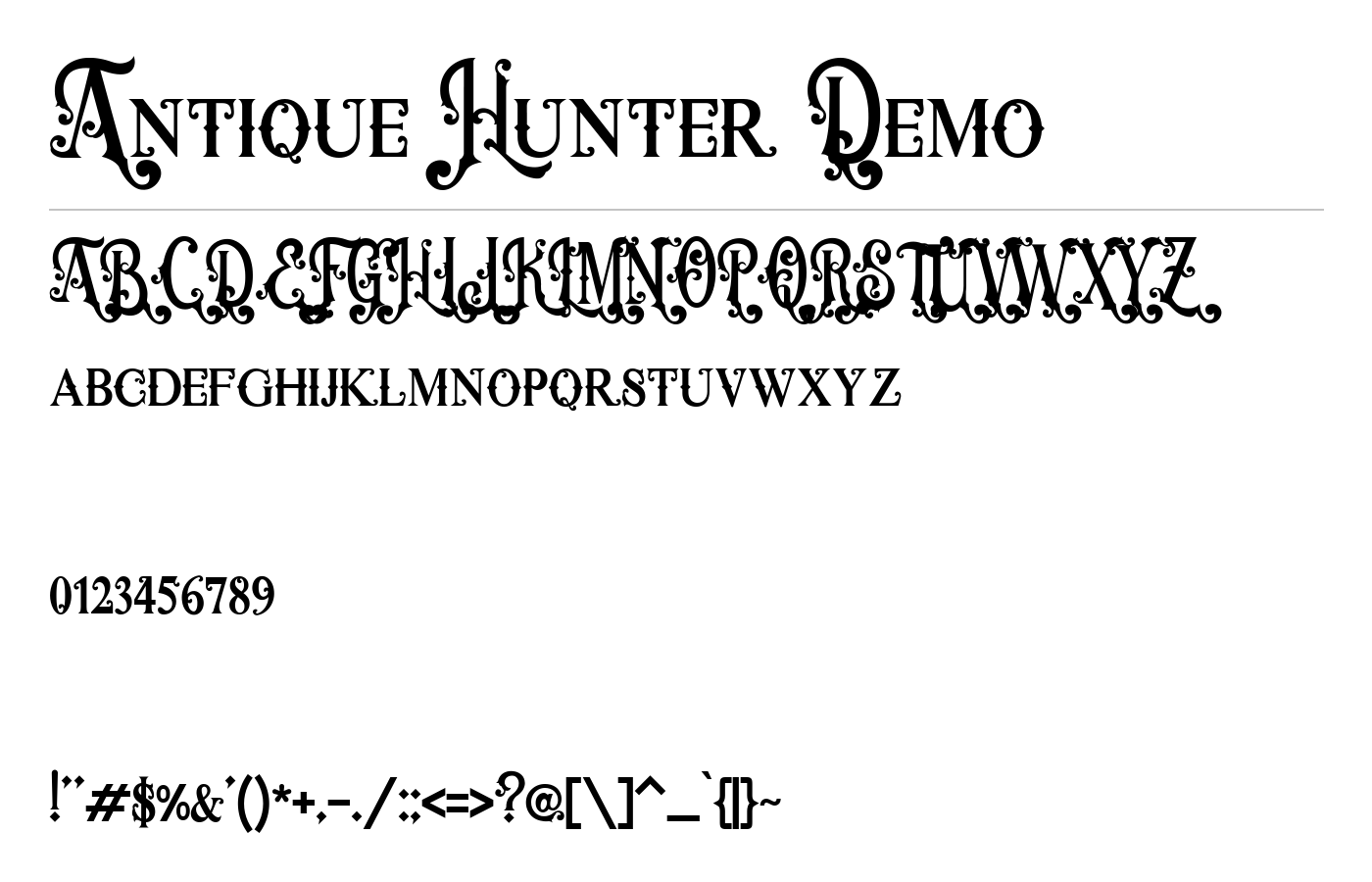
Antique Hunter Demo is a decorative serif typeface with a vintage, ornamental style characterized by bold strokes, intricate curls, and high contrast between thick and thin lines. Its all-caps design features elegant flourishes that evoke a classic, antique feel, making it perfect for logos, headlines, or branding that seeks to convey tradition, sophistication, and old-world charm. This font shines best in display uses where its unique, eye-catching details can be fully appreciated.
Antique Hunter Demo Font
About Antique Hunter Demo Font